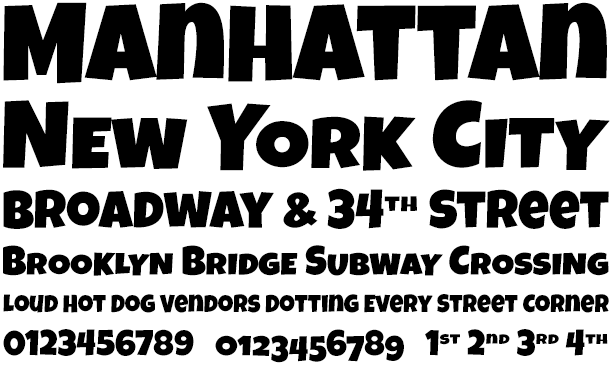
About Luckiest Guy Pro
Our Luckiest Guy Pro was inspired by hand-lettering by vintage 1950\’s advertisements. The uber-bold unicase letterforms exude charm and light-heartedness, while the SmallCaps and extensive figure sets expand the range of usability and appeal. Loaded…